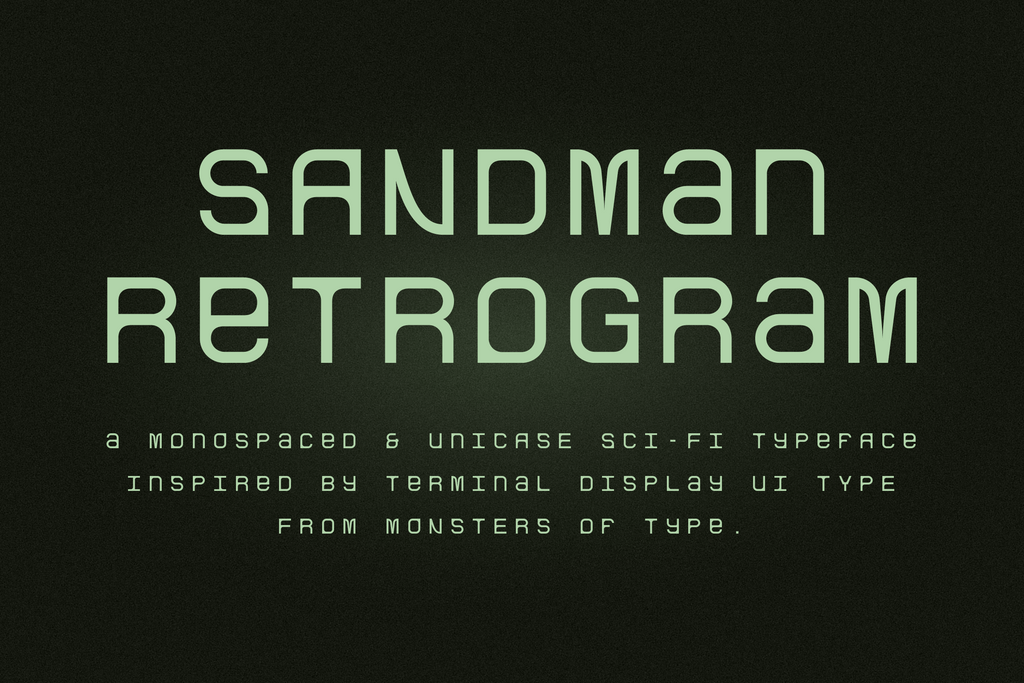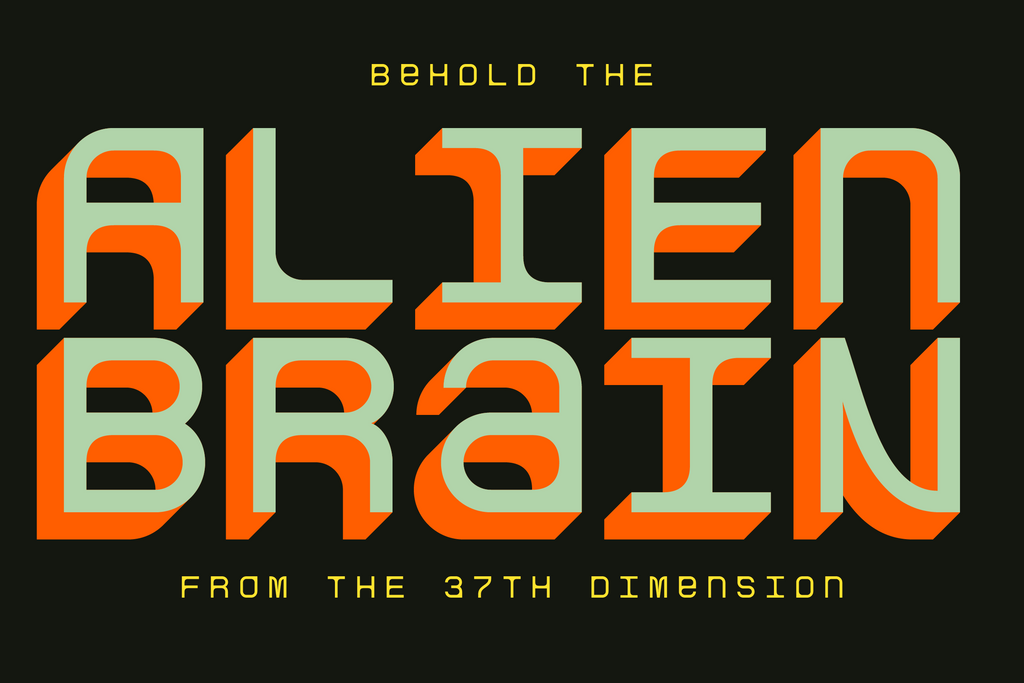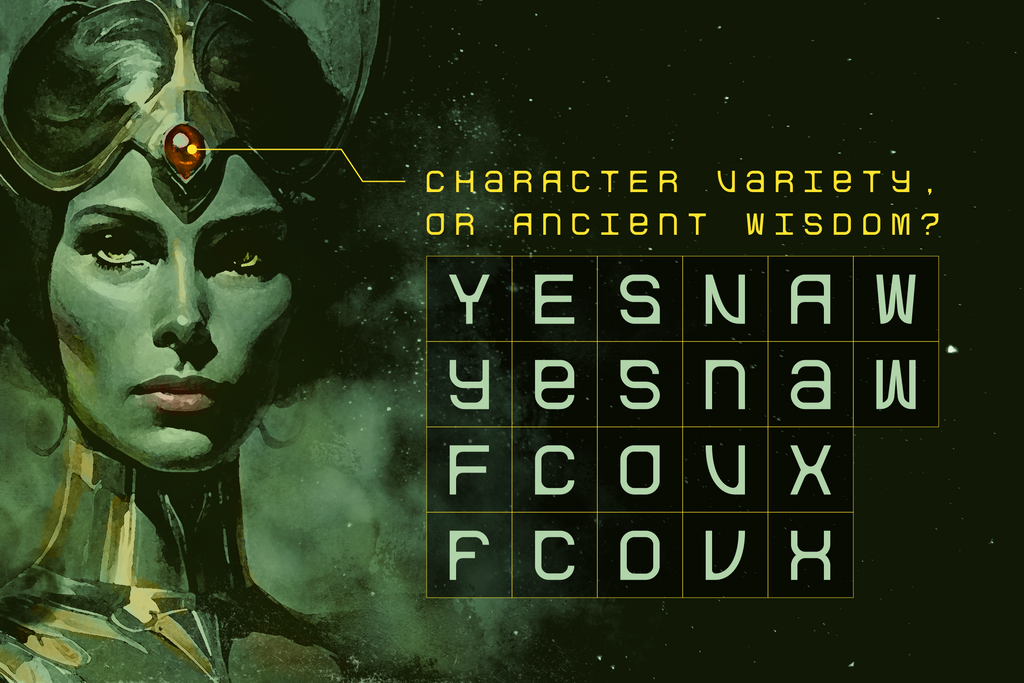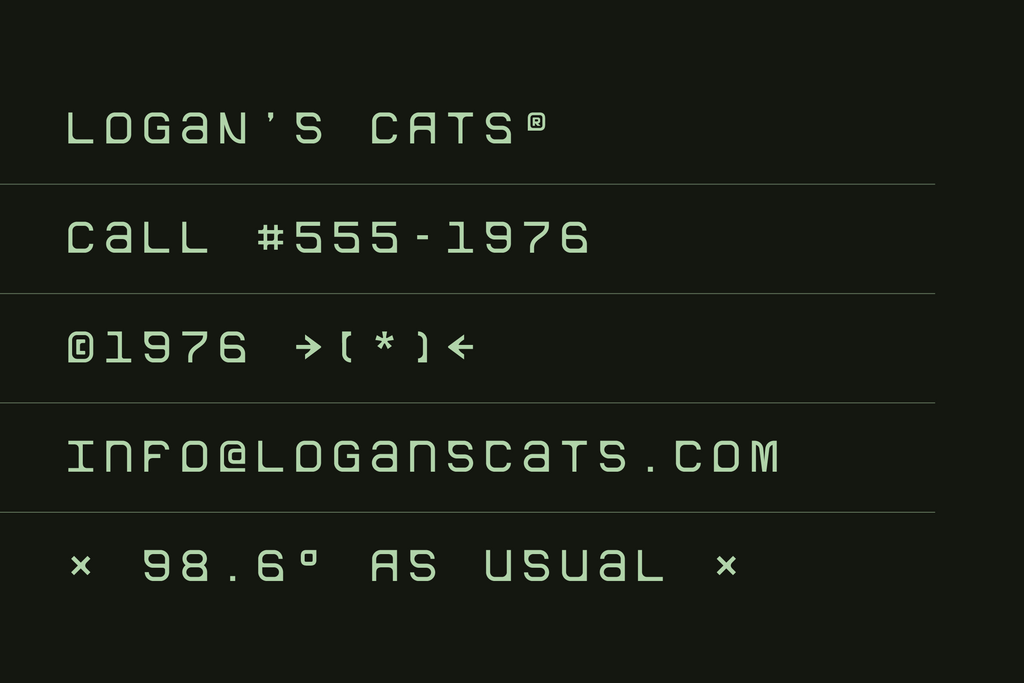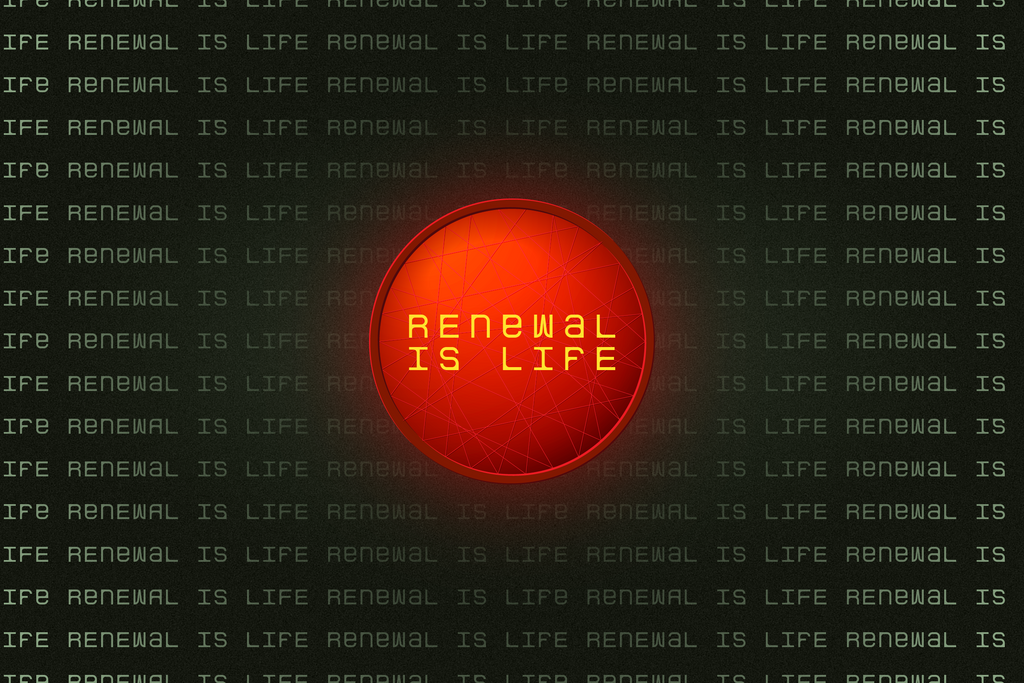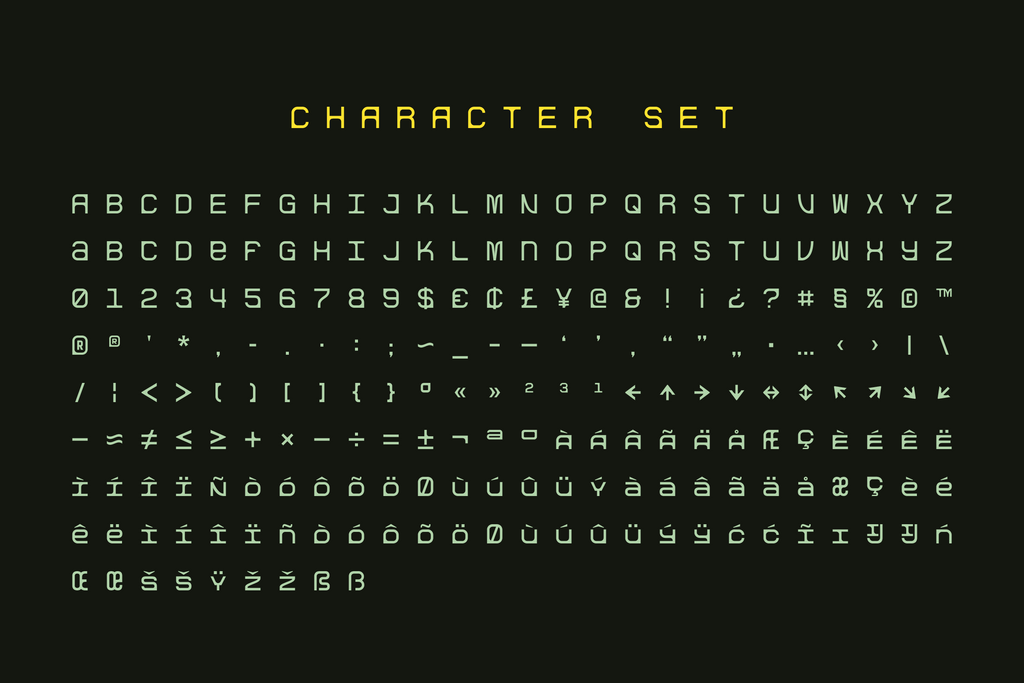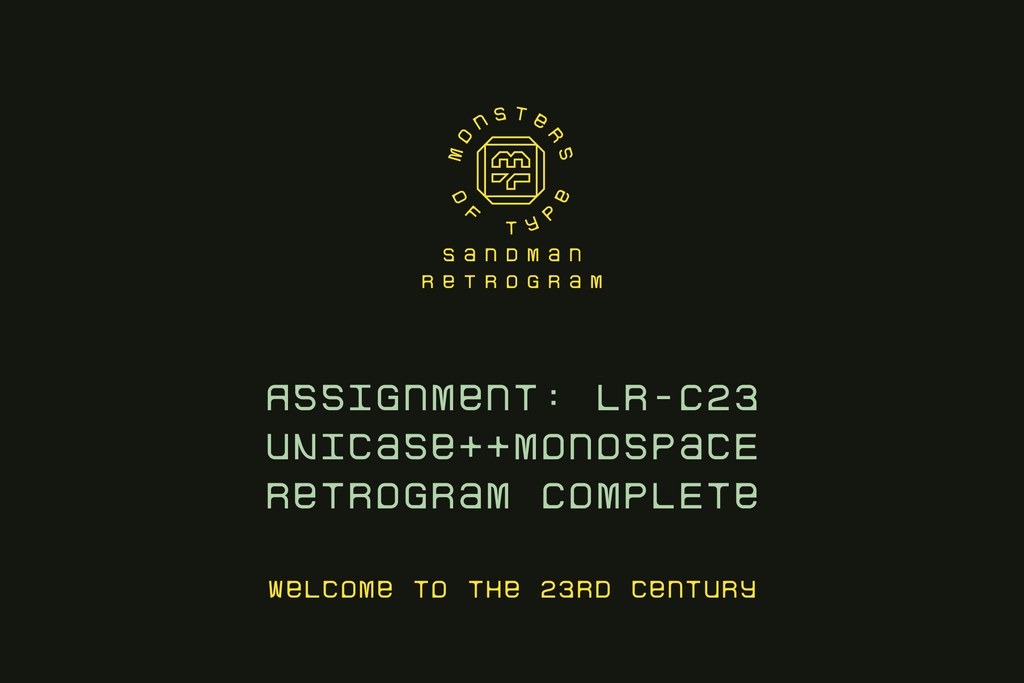
MoT Sandman Retrogram
Sandman Retrogram is a monospaced, unicase sci-fi typeface inspired by retro computer terminals and cinematic interface design. Drawing from the restrained geometry of 1970s–80s screen graphics, it blends technical precision with a softened, human touch—resulting in a system type that feels both functional and atmospheric.
Built on a strict grid, Sandman Retrogram maintains consistent rhythm and spacing, making it ideal for UI-inspiredlayouts, dashboards, HUD graphics, and data-driven compositions. At the same time, its rounded geometry and distinctive unicase structure give it a unique voice for display use, including posters, titles, and sci-fi branding.
This balance between structure and personality allows the typeface to move comfortably between utility and expression. It can read like a working interface, a cinematic prop, or a piece of speculative design from an imagined future.
Sandman Retrogram is well suited for:
- Interface and UI design concepts
- Sci-fi posters and film titles
- Gaming graphics and HUD overlays
- Tech branding and experimental layouts
- Editorial features with a futuristic tone
The character set includes uppercase, lowercase (unicase construction), numerals, punctuation, symbols, arrows, and extended Latin support—making it flexible for both design systems and expressive compositions.
Pair Sandman Retrogram with neutral grotesks or minimal sans serifs to create contrast, or lean fully into its system-driven aesthetic for a cohesive, immersive look.
Designed as both a functional tool and a visual language, Sandman Retrogram captures the feeling of a future imagined through the lens of early digital systems—ordered, precise, and just slightly uncanny.